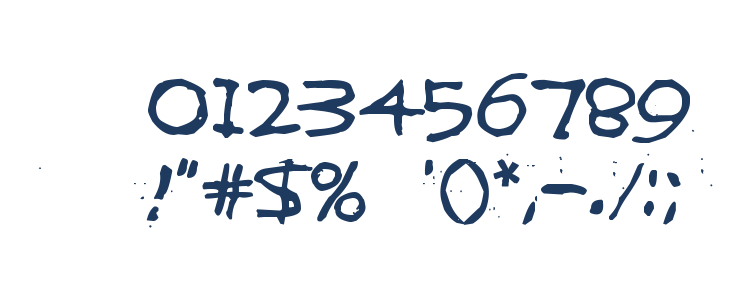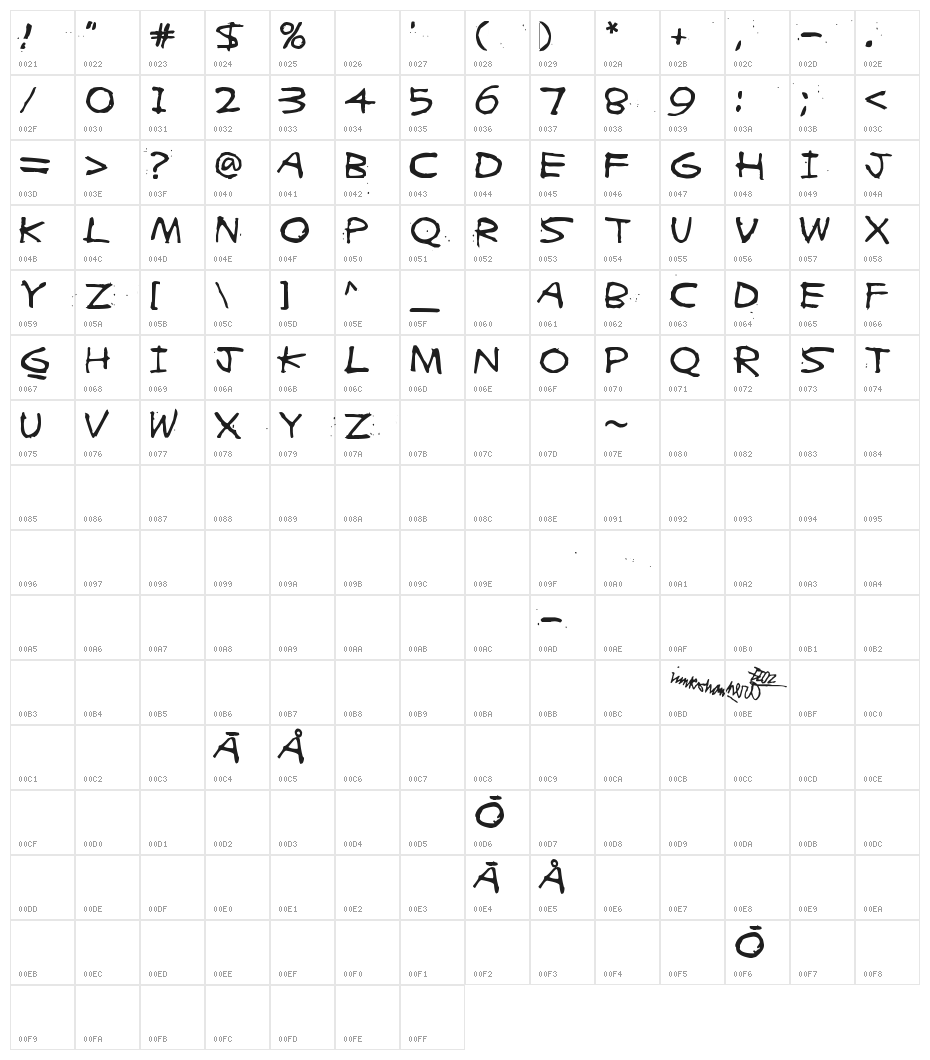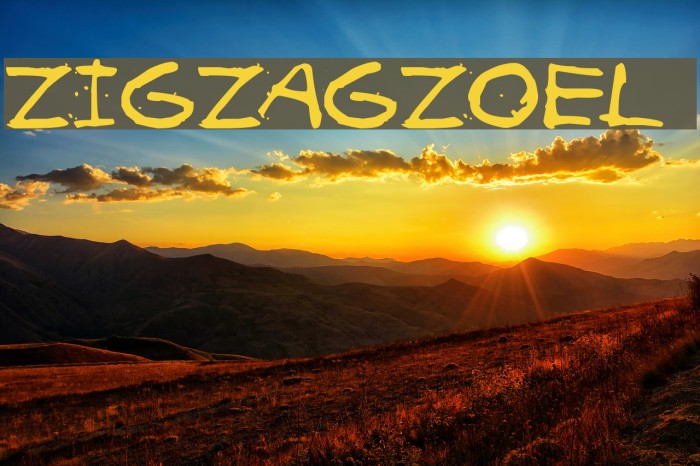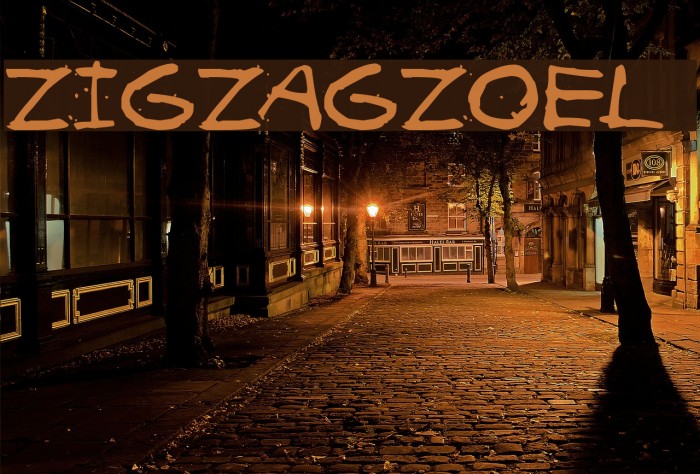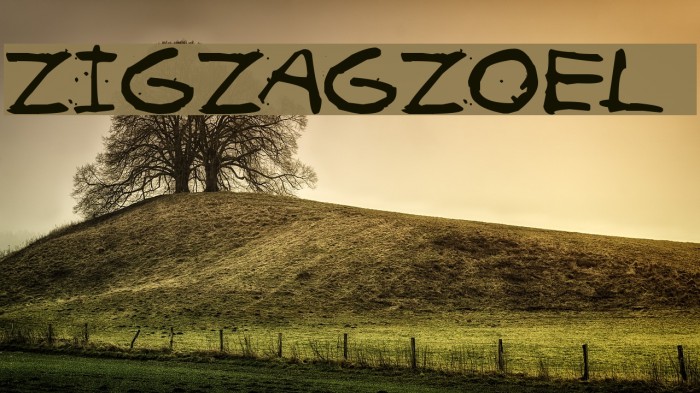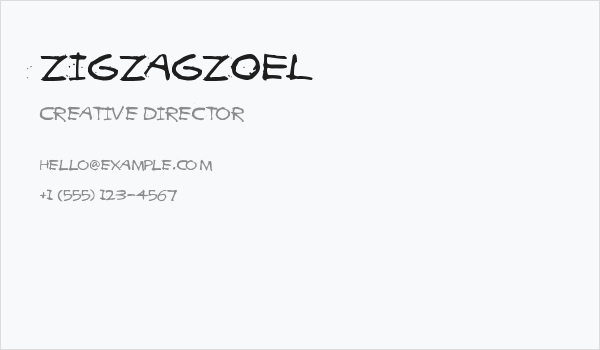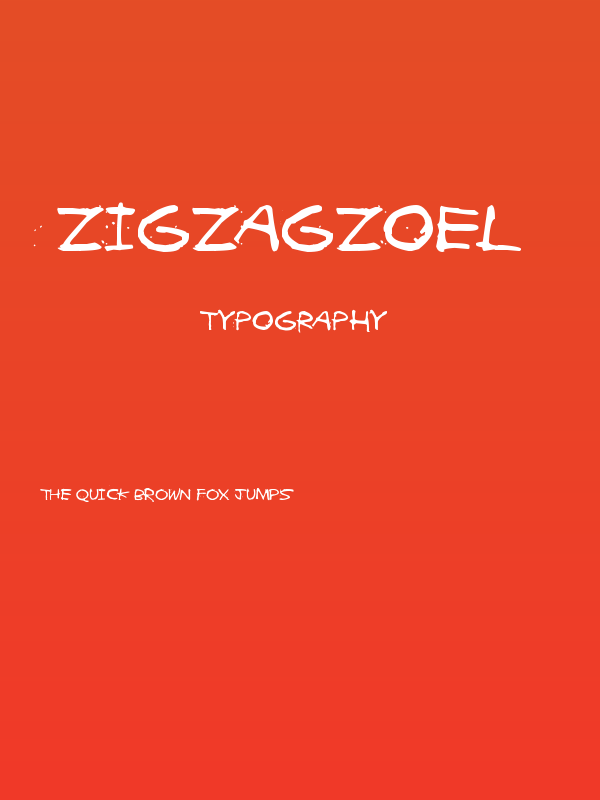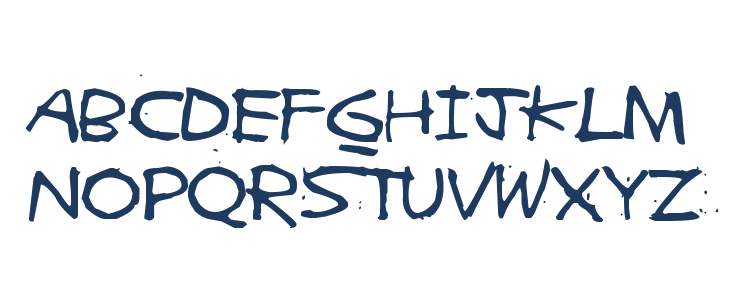
ZIGZAGZOEL Font
ZIGZAGZOEL Description
This font features a bold, expressive style with a hand-drawn appearance, characterized by irregular strokes and a slightly rough texture. The letters exhibit a playful and dynamic quality, with varying line thicknesses that add to its informal and artistic feel. The uppercase and lowercase letters maintain a consistent style, while the numerals and special characters complement the overall design. This font's unique and creative look makes it suitable for projects that require a personal touch or an artistic flair.
| Proposed Projects | Ideal for creative projects such as posters, album covers, artistic branding, and invitations that require a personal and informal touch. |